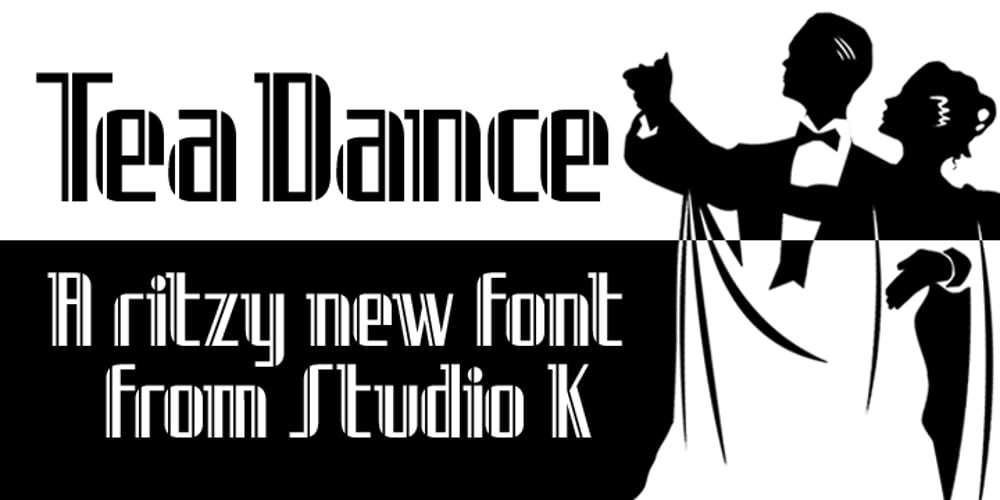
Tea Dance
Tea Dance font
Tea Dance Font Family was designed by Keith Tricker and published by Studio K. Tea Dance contains 2 styles and family package options. If you think nostalgia isn’t what it used to be, this will change your mind. A ritzy new font family from Studio K that will transport you back to the era of afternoon tea dances performed to the strains of the Palm Court Orchestra or the Bath Pump Room Quartet: a celebration of the golden age of dance from Busby Berkeley to Fred Astaire and Ginger Rogers. Enjoy!